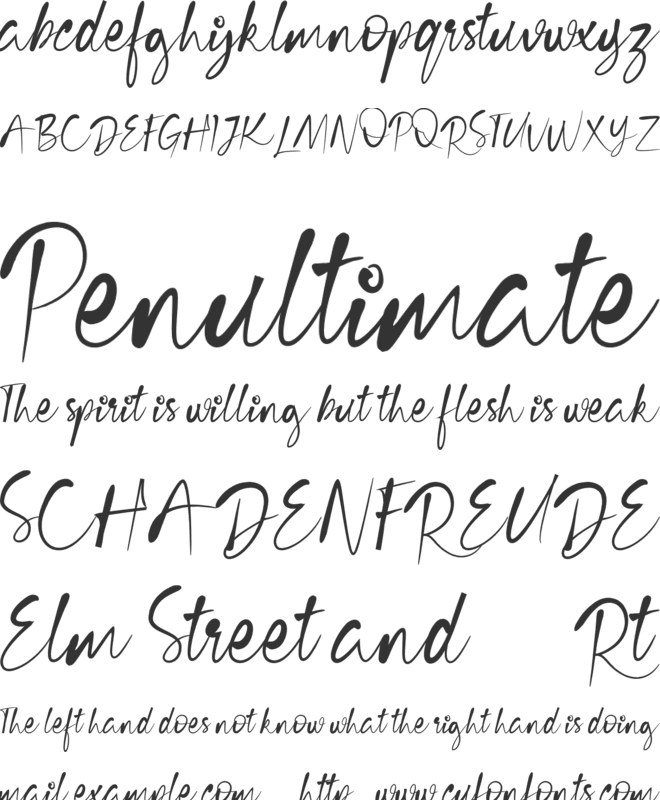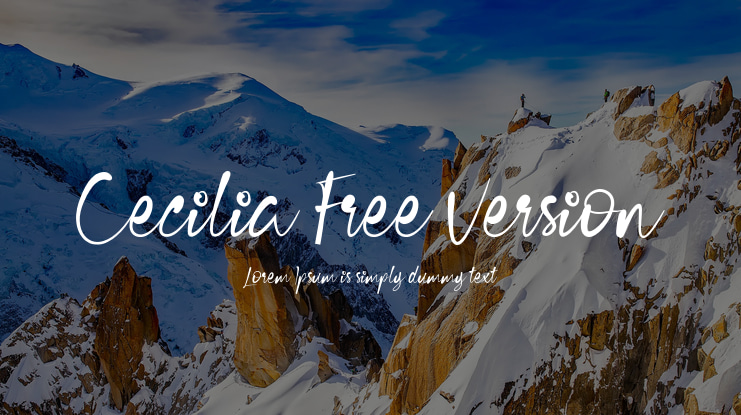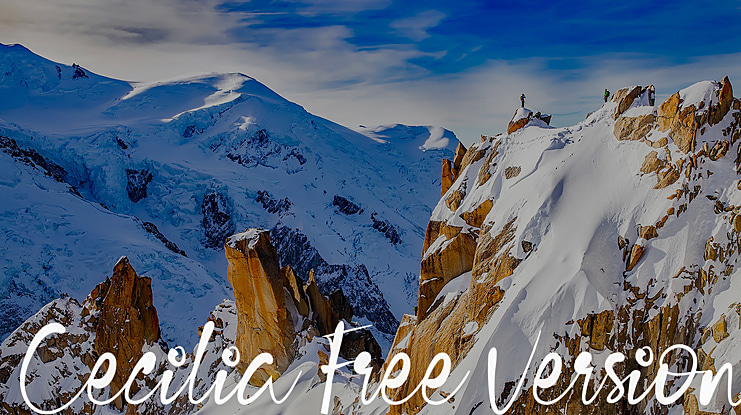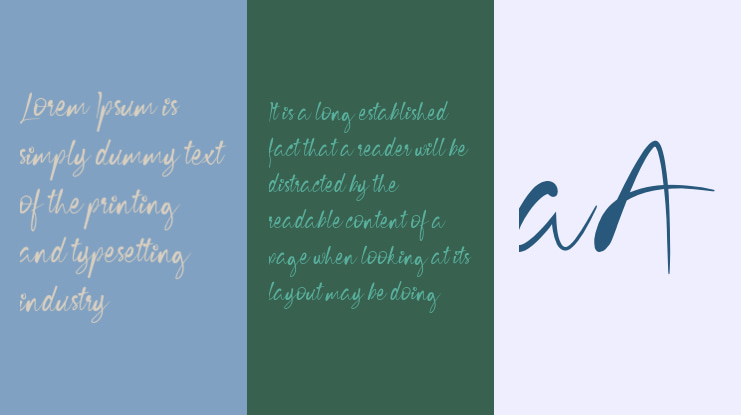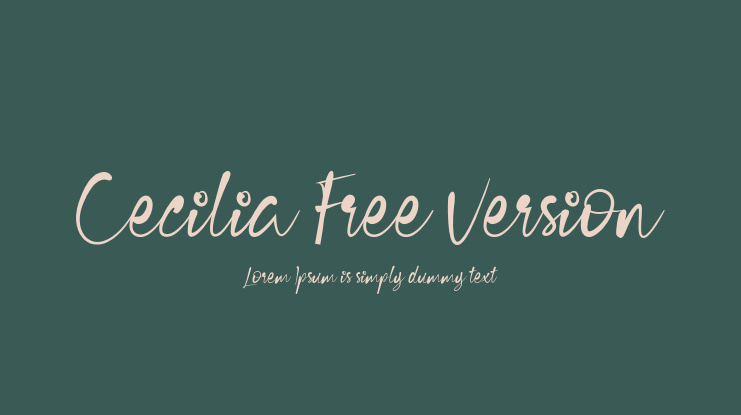
Cecilia Free Version Font
"Cecilia" is a font display is made by hand, inspired by classic posters.
comes with uppercase, lowercase, numerals, punctuations and so many variations on each characters include opentype alternates, common ligatures and also additional swash to let you customise your designs. Perfect to use for Logotype, Letterhead, Poster, Apparel Design, Label and etc.